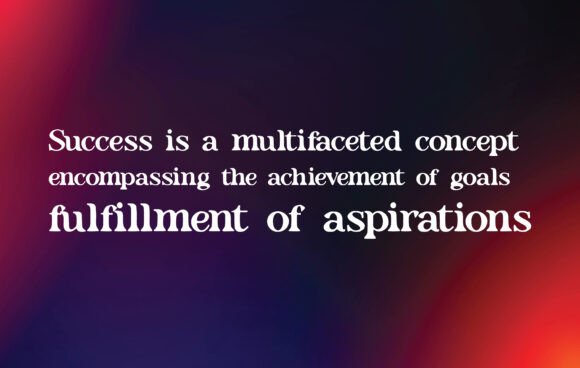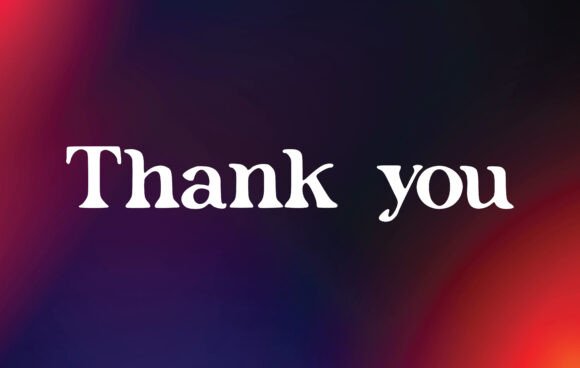
Brock Font: Elevate Your Creative Projects with Elegance and Sophistication
In the world of typography, fonts play a crucial role in bringing creative ideas to life. Among the numerous fonts available, Brock font stands out for its unique blend of elegance and versatility. This lovely and beautiful font has the potential to take your creative projects to new heights, making it an ideal choice for designers and crafters seeking to make a lasting impression.
The Beauty of Brock Font
Brock font is a stunning typeface that boasts a distinctive style, setting it apart from more traditional fonts. Its elegant lines, precise curves, and balanced proportions make it a joy to behold. Whether you’re working on a logo, branding project, or quote, Brock font is sure to add a touch of sophistication and refinement. Its beauty lies in its ability to convey a sense of luxury, creativity, and innovation, making it perfect for projects that require a high level of visual appeal.
Unleash Your Creativity with Brock Font
One of the key benefits of Brock font is its incredible versatility. Its unique design allows it to be used in a wide range of creative projects, from eye-catching logos and branding materials to inspiring quotes and social media graphics. Whether you’re a designer, crafters, or simply someone looking to add a personal touch to your projects, Brock font is an excellent choice. Its ability to adapt to different contexts and styles makes it an invaluable addition to any creative toolkit.
Crafting Eye-Catching Logos and Branding with Brock Font
When it comes to creating memorable logos and branding materials, the font used can make all the difference. Brock font is specifically designed to help you create eye-catching and professional-looking logos that leave a lasting impression. Its clean lines, elegant curves, and precise spacing ensure that your brand’s message is conveyed with clarity and sophistication. Whether you’re launching a new business or rebranding an existing one, Brock font is an excellent choice for creating a strong visual identity.
Brock Font: The Perfect Choice for Quotes and Typography
Brock font is also an excellent choice for creating inspiring quotes and typography-focused projects. Its elegant design and precise lines make it perfect for showcasing powerful words and phrases. Whether you’re creating social media graphics, posters, or prints, Brock font adds a touch of sophistication and refinement, elevating your message and making it more impactful.
Why Choose Brock Font?
So, why should you choose Brock font for your creative projects? Here are just a few reasons:
- Elegance and sophistication: Brock font boasts a unique blend of elegance and sophistication, making it perfect for projects that require a high level of visual appeal.
- Versatility: Brock font is incredibly versatile, making it suitable for a wide range of creative projects, from logos and branding to quotes and typography.
- Easy to read: Despite its elegant design, Brock font is easy to read, making it perfect for projects that require clear communication.
- Unique style: Brock font has a distinctive style that sets it apart from more traditional fonts, making it an excellent choice for designers and crafters seeking to make a lasting impression.
In conclusion, Brock font is a lovely and beautiful font that has the potential to take your creative projects to new heights. Its elegance, versatility, and unique style make it an excellent choice for designers and crafters seeking to create eye-catching logos, branding materials, and quotes. Whether you’re looking to add a touch of sophistication to your projects or simply seeking a font that can help you stand out from the crowd, Brock font is an excellent choice. So why wait? Discover the power of Brock font and elevate your creative projects with elegance and sophistication.